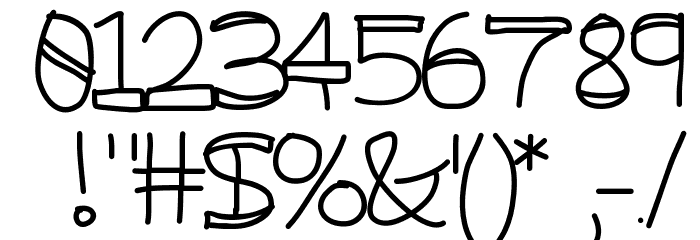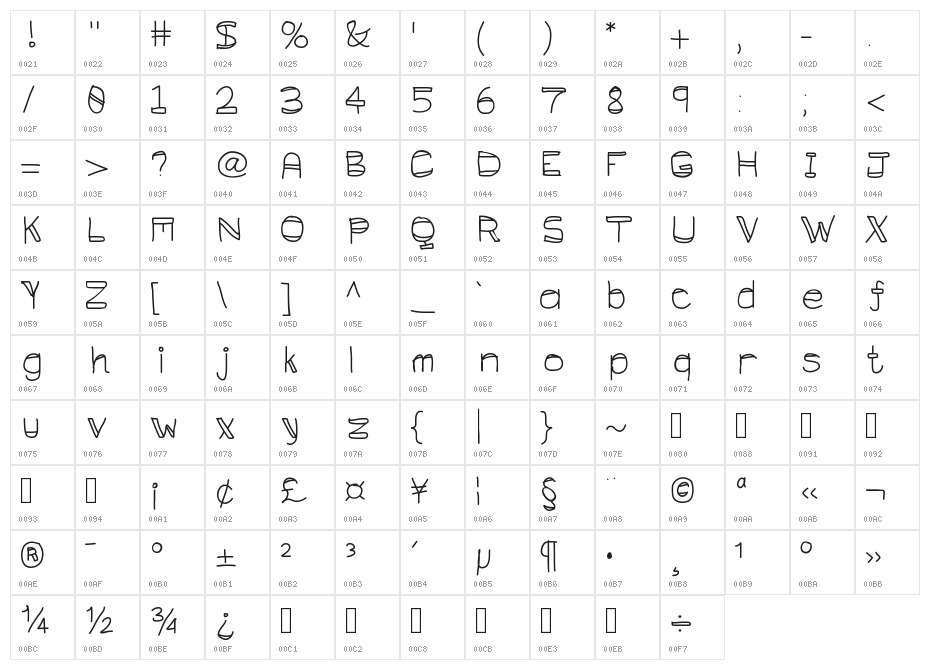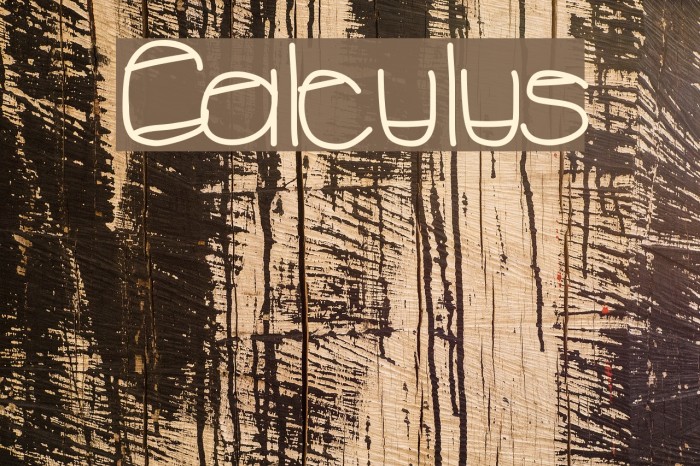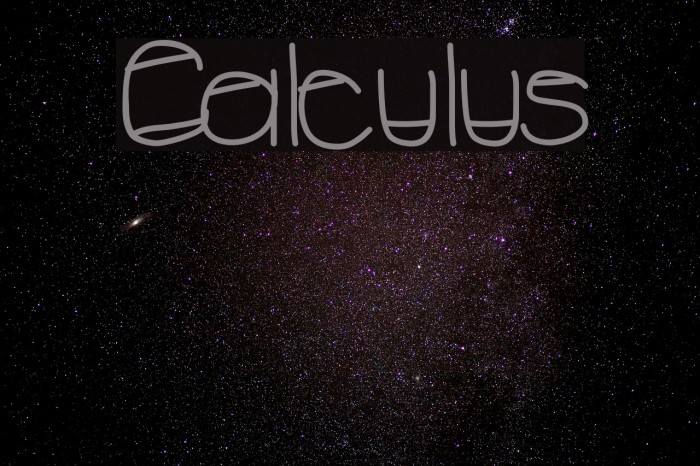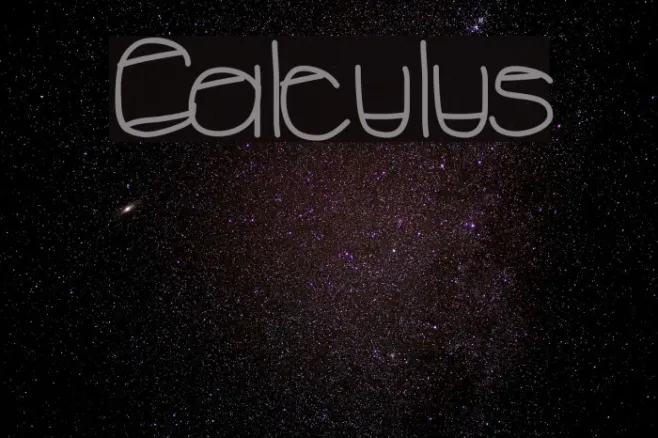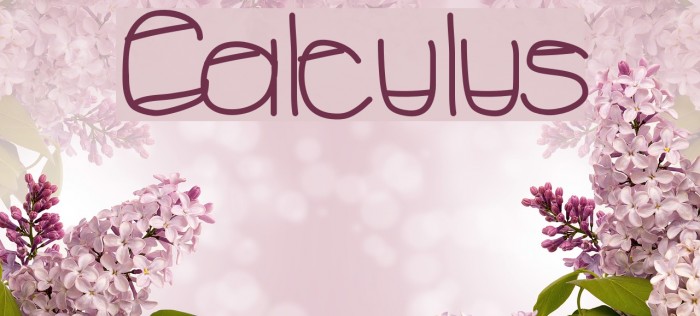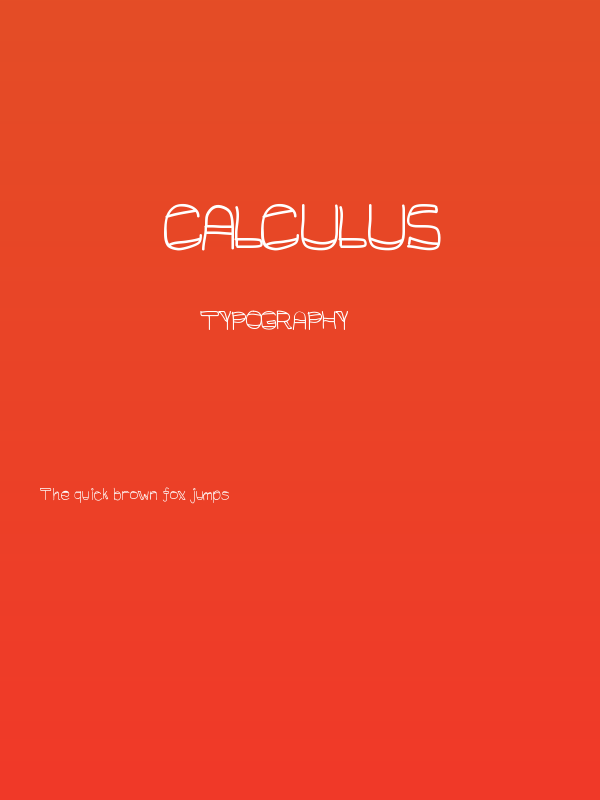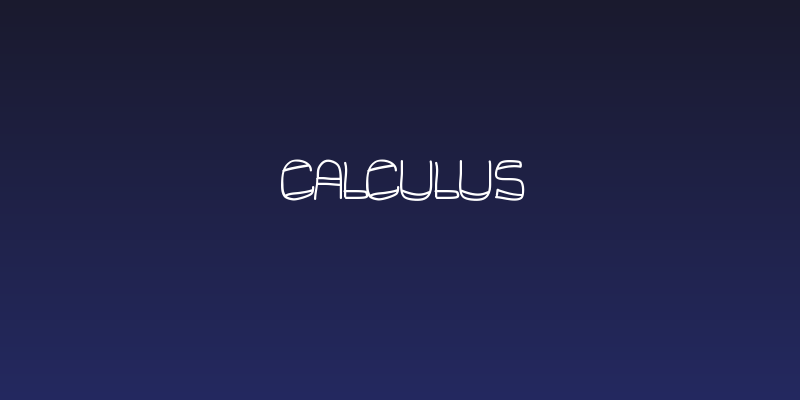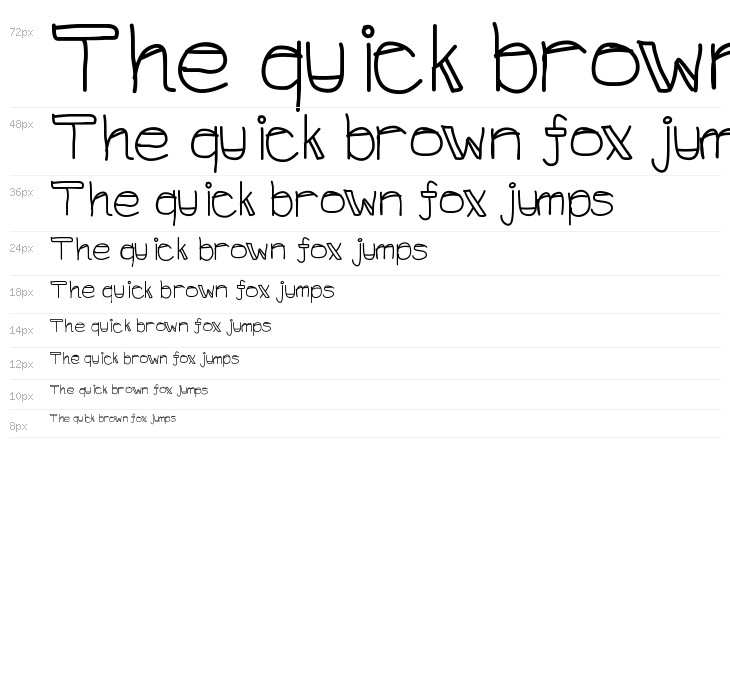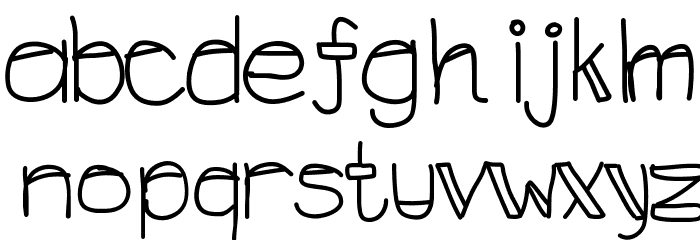
Calculus Font
Calculus Description
This font features a playful and informal handwritten style, characterized by its loose and casual strokes. The letters have a slightly uneven baseline, adding to the whimsical and relaxed feel. The uppercase and lowercase letters are distinct, with the uppercase being more structured while the lowercase maintains a freeform appearance. The numbers and special characters follow the same playful aesthetic, making this font suitable for creative and informal projects. The overall design is approachable and friendly, with a touch of spontaneity that can add personality to any text.
| Proposed Projects | Ideal for children's books, greeting cards, informal invitations, and creative branding projects. |